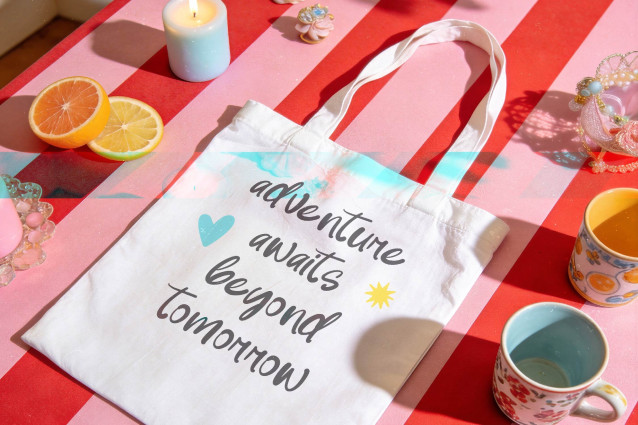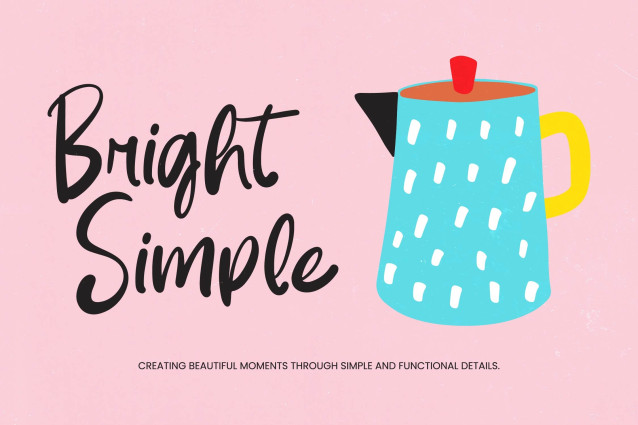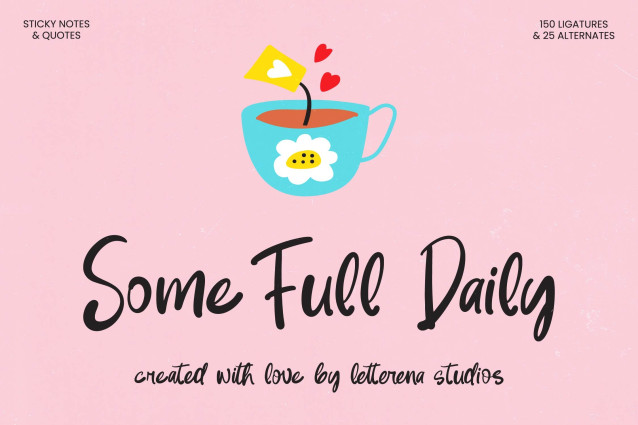
Some Full Daily – Sticky Notes & Quotes
Elevate your creative projects with an authentic, human touch using the Some Full Daily – Sticky Notes & Quotes typeface. This handcrafted script captures a playful yet sophisticated organic aesthetic, making it an essential tool for modern designers seeking personality and warmth. With its impressive collection of 150 ligatures and 25 alternates, Some Full Daily – Sticky Notes & Quotes offers a level of customization that ensures your headlines look uniquely tailored and professionally balanced.
Master the art of personalization with sophisticated typographic features that bridge the gap between digital design and traditional hand-lettering. With its extensive multilingual support, Some Full Daily – Sticky Notes & Quotes adapts seamlessly across global markets, making it incredibly versatile for international projects. This premium typography ensures that your message remains clear and stylish, regardless of the language, while maintaining its natural flow and visual harmony across all platforms.